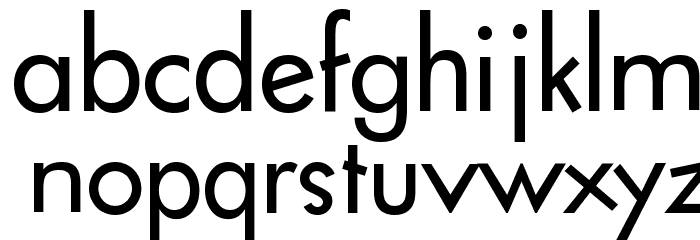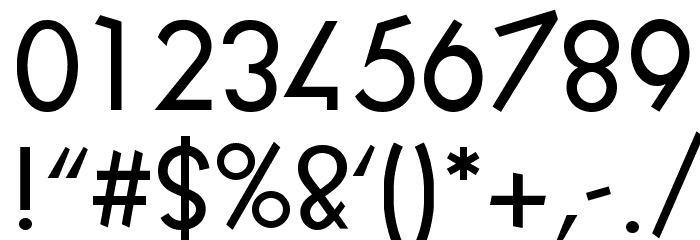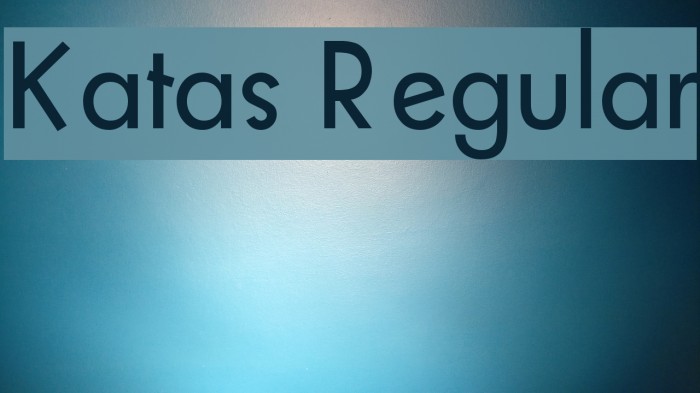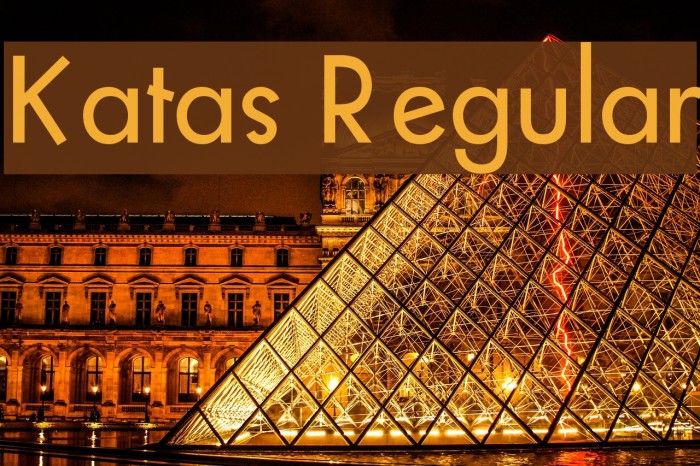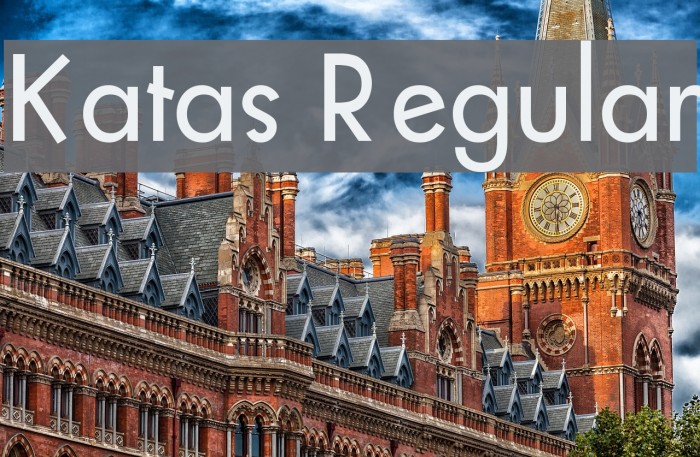
Katas Regular Font
This font features a clean and modern sans-serif design, characterized by its geometric shapes and uniform stroke widths. The uppercase letters are bold and assertive, while the lowercase letters maintain a consistent style with rounded edges that add a touch of softness. The numerals are clear and easy to read, making them suitable for various applications. Special characters are well-defined, ensuring versatility in usage. The overall appearance is sleek and contemporary, making it ideal for digital and print media.
- Proposed Projects: Ideal for branding, web design, advertising, and editorial layouts.